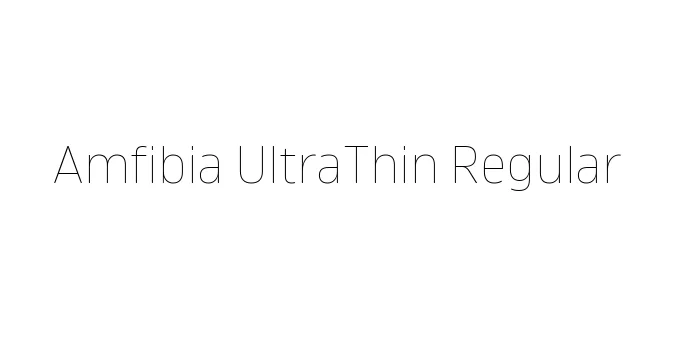
Amfibia UltraThin Regular
Designed by Thariq
Amfibia UltraThin Regular is a masterclass in minimalist typography, characterized by its exceptionally slender strokes and clean, geometric architecture. Designed to evoke a sense of modern elegance and sophistication, this font strips away all unnecessary weight to focus on the pure form of each character, making it an ideal choice for high-end fashion branding and contemporary digital interfaces where clarity and style are paramount.
The typeface belongs to the larger Amfibia family, which was developed to provide designers with a versatile tool for projects requiring a sleek, tech-forward aesthetic. While its ultra-thin weight requires careful handling in print to maintain legibility, it excels in large-scale display applications where its delicate lines can truly shine, creating a professional and polished atmosphere for any creative composition.
Amfibia UltraThin Regular Best Uses
Ideal for luxury fashion labels and high-end boutique identity systems.
Perfect for minimalist hero headers and sophisticated website titles.
Excellent for artistic magazine covers and high-fashion spreads.
Great for clean, futuristic product advertisements and minimalist posters.